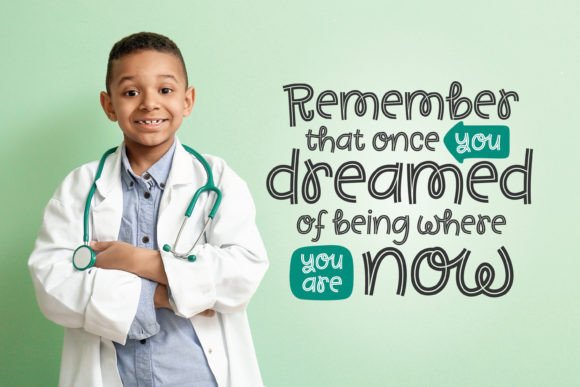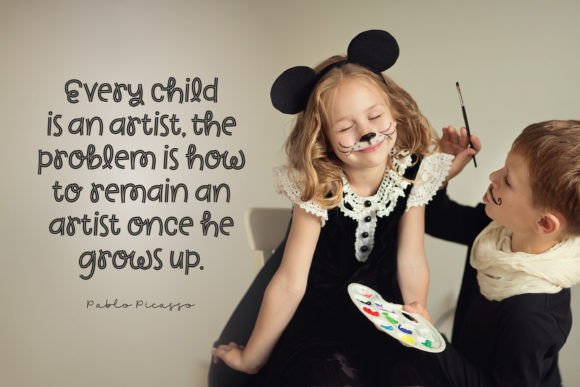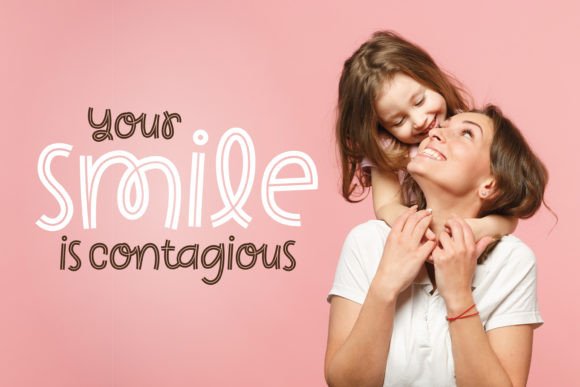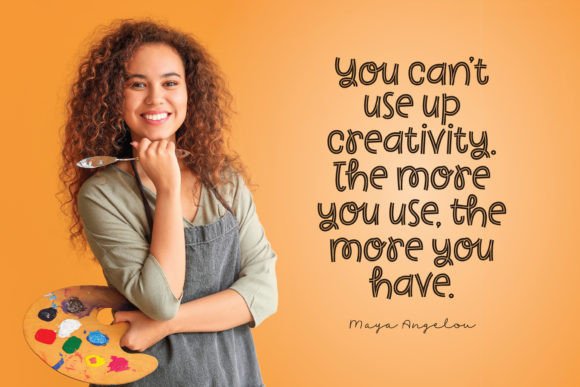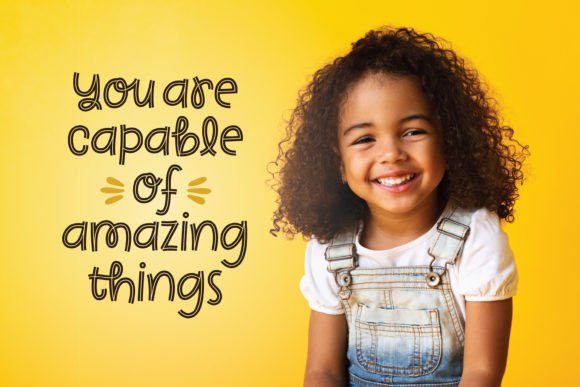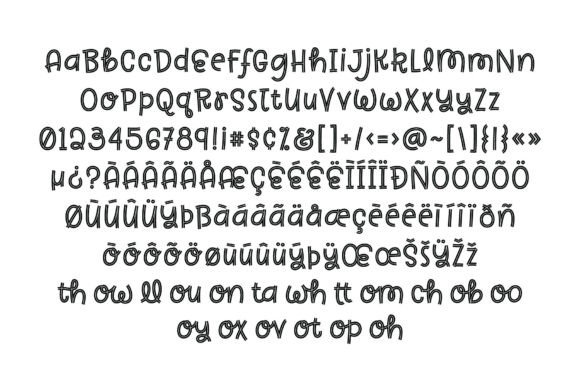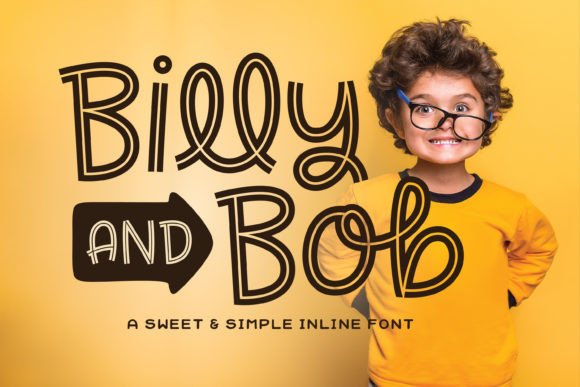
Billy and Bob Font: A Sweet and Simple Inline Font for Designers and Crafters
Are you looking for a font that can add a playful and hand-drawn touch to your designs? Look no further than the Billy and Bob font! This sweet and simple inline font is perfect for designers and crafters who want to create unique and eye-catching projects. In this article, we’ll take a closer look at the Billy and Bob font, its features, and how you can use it to take your designs to the next level.
Introducing Billy and Bob Font
The Billy and Bob font is a modern and fun inline font that is designed to create a playful and hand-drawn look. It features several ligatures that automatically appear when used in programs with OpenType support, making it easy to create beautiful and unique text designs. The font works best at larger sizes, so that the details can be seen, making it perfect for headlines, titles, and other design elements.
Key Features of Billy and Bob Font
• Sweet and Simple Design: The Billy and Bob font features a simple and sweet design that is perfect for creating playful and hand-drawn text designs.
• Inline Style: The font has an inline style that gives it a unique and modern look.
• Ligatures: The font features several ligatures that automatically appear when used in programs with OpenType support, making it easy to create beautiful and unique text designs.
• Works Best at Larger Sizes: The font works best at larger sizes, so that the details can be seen, making it perfect for headlines, titles, and other design elements.
Use Cases for Billy and Bob Font
The Billy and Bob font is perfect for a variety of design projects, including:
• Headlines and Titles: The font is perfect for creating eye-catching headlines and titles for blogs, websites, and social media posts.
• Signs and Banners: The font is great for creating signs and banners for events, sales, and promotions.
• Party Invitations: The font is perfect for creating playful and fun party invitations for kids and adults.
• Crafting Projects: The font is great for crafters who want to add a personal touch to their projects, such as handmade cards, gift tags, and scrapbooking.
Tips for Using Billy and Bob Font
Here are some tips for using the Billy and Bob font:
• Use it at Larger Sizes: The font works best at larger sizes, so try using it for headlines and titles.
• Experiment with Ligatures: The font features several ligatures that can add a unique touch to your designs. Experiment with different ligatures to see what works best for your project.
• Pair it with Other Fonts: The Billy and Bob font can be paired with other fonts to create a unique and interesting design. Try pairing it with a sans-serif font for a modern look.
The Billy and Bob font is a sweet and simple inline font that is perfect for designers and crafters who want to create playful and hand-drawn text designs. With its several ligatures and modern design, it’s perfect for a variety of design projects, from headlines and titles to signs and banners. By following the tips outlined in this article, you can use the Billy and Bob font to take your designs to the next level.
In conclusion, the Billy and Bob font is a great addition to any designer’s or crafter’s font collection. Its unique and playful design makes it perfect for a variety of design projects. So why not give it a try and see what amazing designs you can create with the Billy and Bob font?